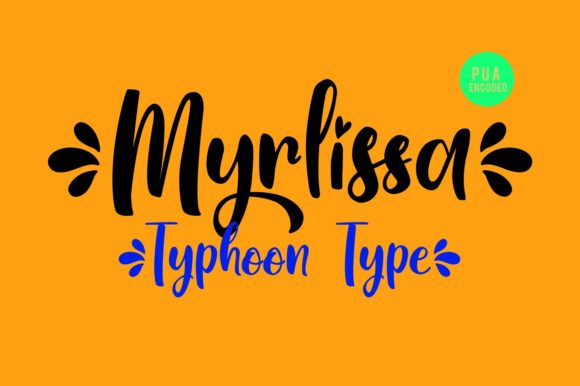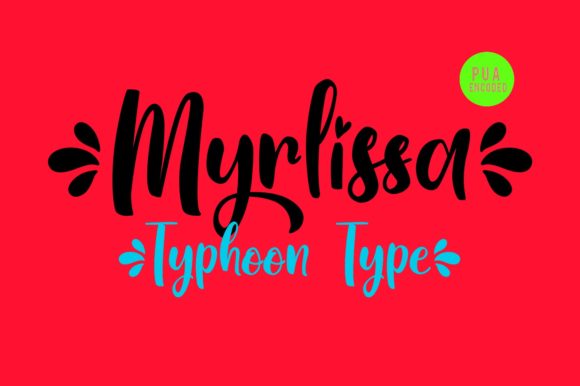
Introduction to Myrlissa Font
Have you ever found yourself stuck in a design rut, searching for the perfect font to bring your creative project to life? It’s a feeling we’ve all been there, and it’s exactly what led us to discover the lovely Myrlissa Font. This charming handwritten font has been a game-changer for designers, offering a unique blend of clean lines and quirky charm that’s sure to elevate any design.
As a valuable design resource, Myrlissa Font is a must-have for anyone looking to add a personal touch to their branding, social media, or crafty DIY projects. Its high-quality design and transparent background make it perfect for use on a variety of mediums, from digital graphics to print materials.
- Features a unique, elegant design that is perfect for headings, titles, and other prominent text elements
Honest Review: Myrlissa Font
As a designer, I’m always on the lookout for high-quality fonts that can elevate my creative projects. The Myrlissa Font has caught my attention, and I’m excited to share my honest review.
What works well: ✨ The Myrlissa Font has a unique, elegant design that’s perfect for a variety of projects. Its clean lines and subtle flair make it an excellent choice for headings and titles. The font also comes in a range of weights, from light to bold, which is great for adding depth and visual interest to your designs. Plus, it’s free to download, making it a valuable resource for designers on a budget.
What doesn’t work well: ⚠️ While the Myrlissa Font is a great addition to any design arsenal, I do wish it had a more comprehensive character set. As it stands, it’s a bit limited in terms of special characters and symbols, which can be a drawback for designers working on complex projects. Additionally, the transparent background option can sometimes cause issues with layering and stacking, which may require some extra tweaking.
Overall impression: The Myrlissa Font is a solid choice for designers looking for a high-quality, elegant font for their creative projects. While it may have some limitations, its unique design and range of weights make it a valuable resource for any design studio or freelancer.
- Unique, elegant design
- Range of weights (light to bold)
How to Use Myrlissa Font
Myrlissa Font is a high-quality, free download design resource suitable for various creative projects. This font offers a unique and elegant design, making it perfect for graphic designers, artists, and individuals seeking a distinctive look for their projects.
For the best results, use Myrlissa Font with a transparent background to create a seamless and elegant design. Experiment with different font sizes and combinations to add visual interest to your project.
Myrlissa Font is ideal for various creative projects, including:
- Typography
- Branding